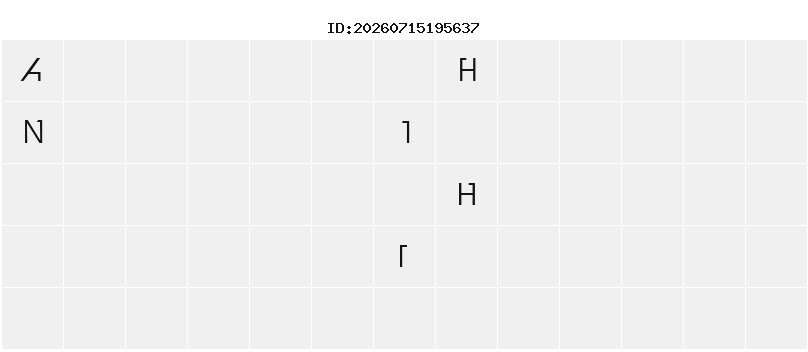
About AvantGarde ALT.ttf
AvantGarde ALT.ttf is a modern, elegant sans-serif font designed for ultimate readability and visual harmony. Perfect for branding, headlines, web design, and print materials.